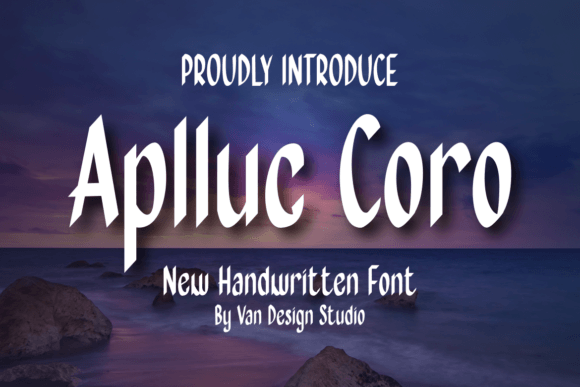
Aplluc Coro Font: The Sweet and Friendly Handwritten Font for Your Design Needs
Are you a designer or crafter looking for a font that can add a touch of sweetness and friendliness to your designs? Look no further than Aplluc Coro, a beautiful handwritten font that is perfect for a wide range of projects. In this article, we’ll take a closer look at Aplluc Coro and explore its features, benefits, and uses.
What is Aplluc Coro?
Aplluc Coro is a sweet and friendly handwritten font that is designed to bring a personal touch to your designs. Its natural and unique style makes it incredibly fitting to a large pool of designs, from invitations and greeting cards to logos and branding materials. The font’s creator has carefully crafted each letter to ensure that it is legible, yet playful and charming.
Features of Aplluc Coro
Aplluc Coro has several features that make it a standout font:
• Handwritten style: Aplluc Coro is a handwritten font that is designed to look like it was written with a pen or pencil. This gives it a personal and informal feel that is perfect for designs that need to be friendly and approachable.
• Unique and natural style: The font has a unique and natural style that sets it apart from other handwritten fonts. Its letters are carefully crafted to have a sense of movement and flow, making it easy to read and fun to use.
• Legible and readable: Despite its playful style, Aplluc Coro is highly legible and readable, making it perfect for use in a wide range of designs, from body text to headings and titles.
• Versatile: Aplluc Coro is an incredibly versatile font that can be used in a wide range of designs, from digital projects like websites and social media graphics to print projects like brochures and posters.
Benefits of Using Aplluc Coro
There are many benefits to using Aplluc Coro in your designs:
• Adds a personal touch: Aplluc Coro’s handwritten style adds a personal touch to your designs, making them feel more approachable and friendly.
• Stand out from the crowd: Aplluc Coro’s unique and natural style helps your designs stand out from the crowd, making them more noticeable and memorable.
Uses of Aplluc Coro
Aplluc Coro is a versatile font that can be used in a wide range of designs, including:
• Invitations and greeting cards: Aplluc Coro is perfect for creating invitations and greeting cards that need to be friendly and approachable.
• Logos and branding materials: Aplluc Coro can be used to create unique and memorable logos and branding materials that reflect your brand’s personality.
• Websites and social media graphics: Aplluc Coro can be used to add a personal touch to your website or social media graphics, making them more engaging and fun to use.
• Print projects: Aplluc Coro can be used in a wide range of print projects, from brochures and posters to flyers and business cards.
Aplluc Coro is a sweet and friendly handwritten font that is perfect for designers and crafters who need a font that can add a personal touch to their designs. Its natural and unique style makes it incredibly fitting to a large pool of designs, and its legibility and readability make it easy to use in a wide range of projects. Whether you’re creating invitations, logos, or websites, Aplluc Coro is a great choice. So why not give it a try and see how it can enhance your designs?